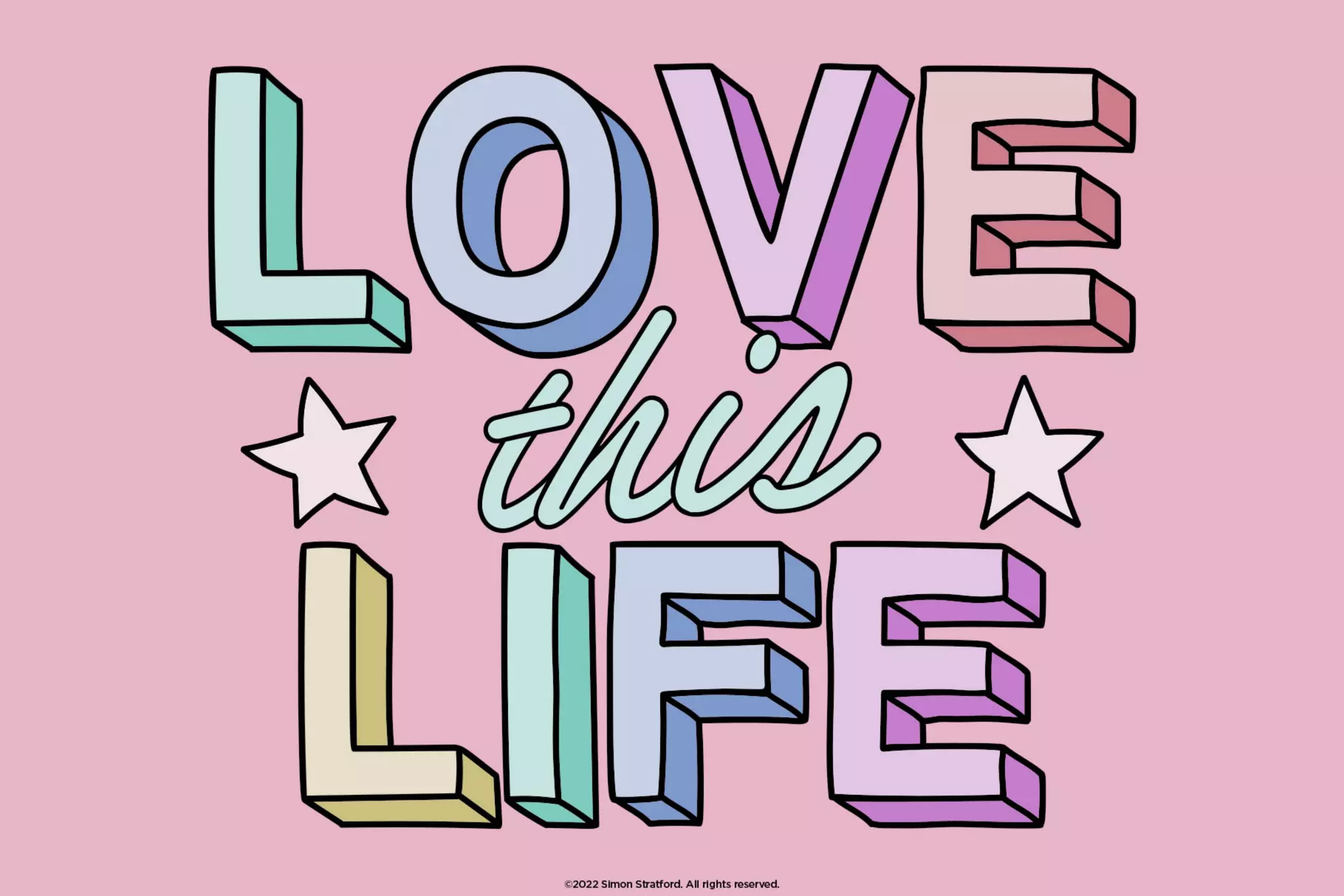
Love this life is a strange-looking OpenType SVG font overflowing with energy and colour. It really attracts attention to its slightly shaky gutsy outlines—giving it a lovely cheeky appearance. https://www.behance.net/gallery/147453773/Love-this-life-display-font